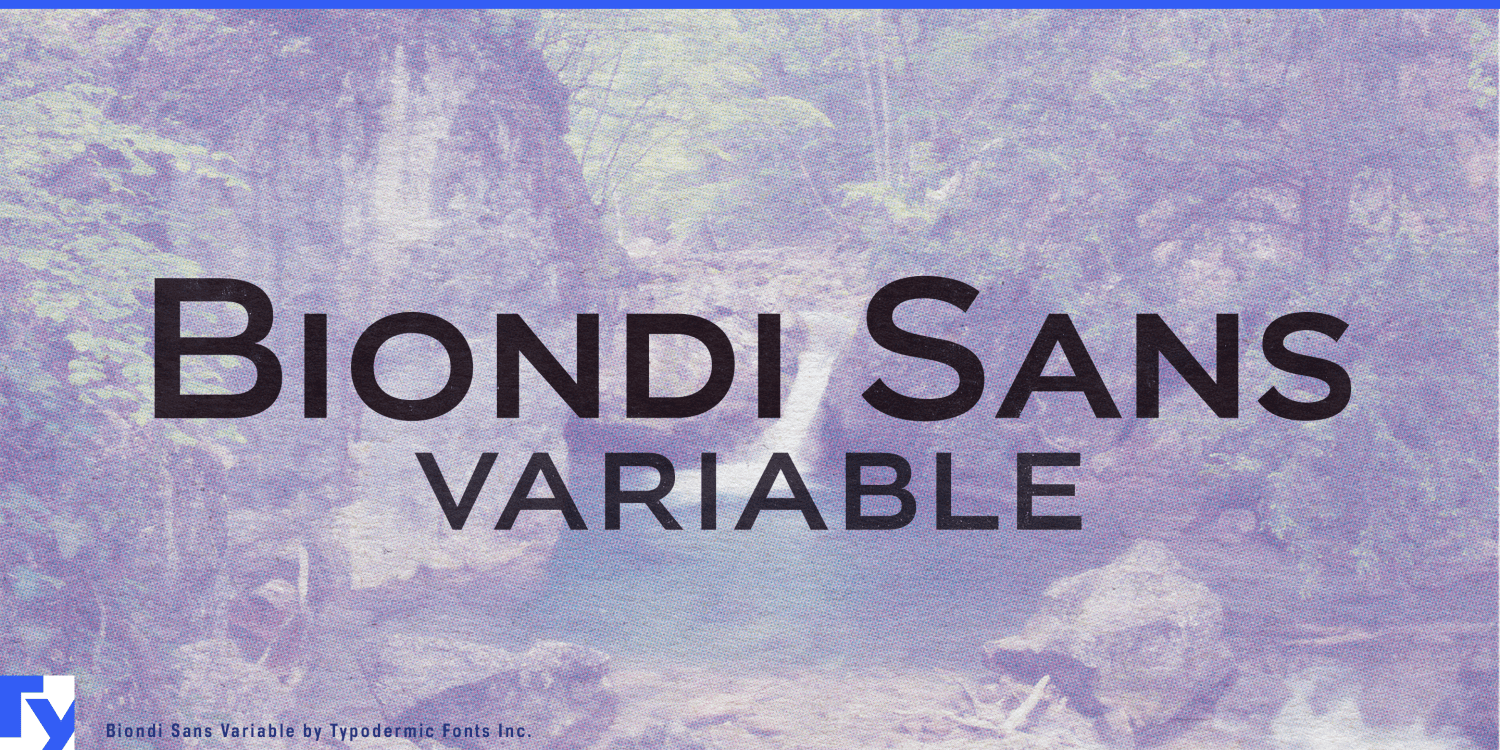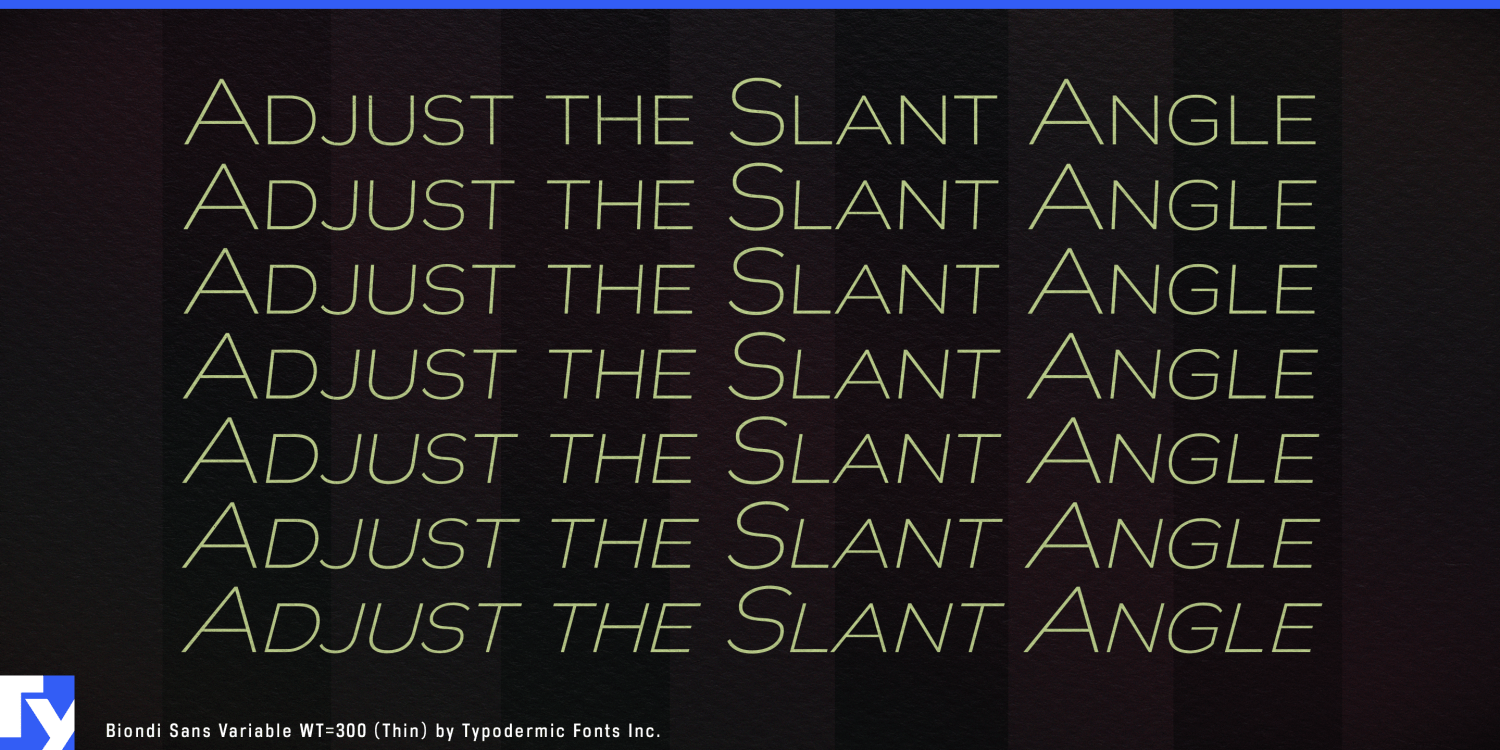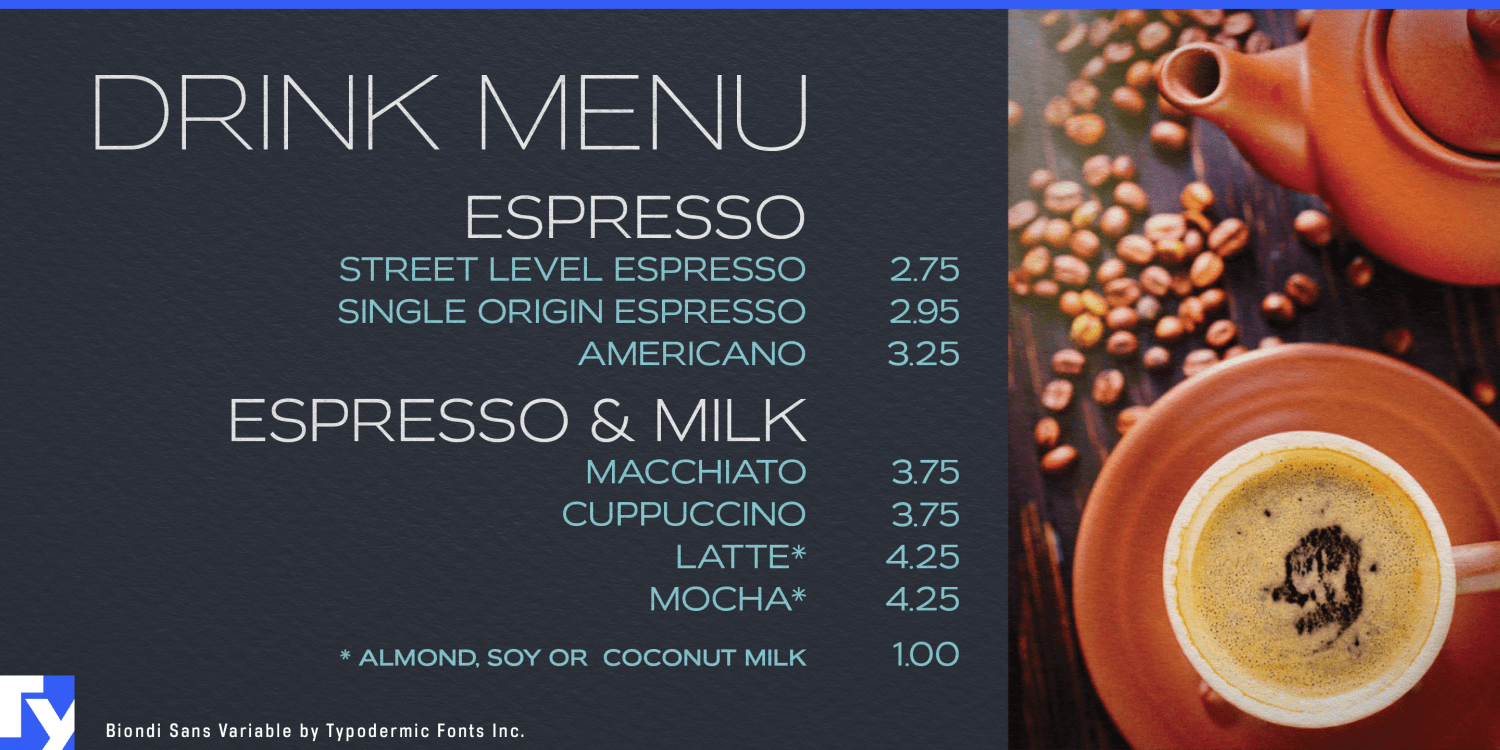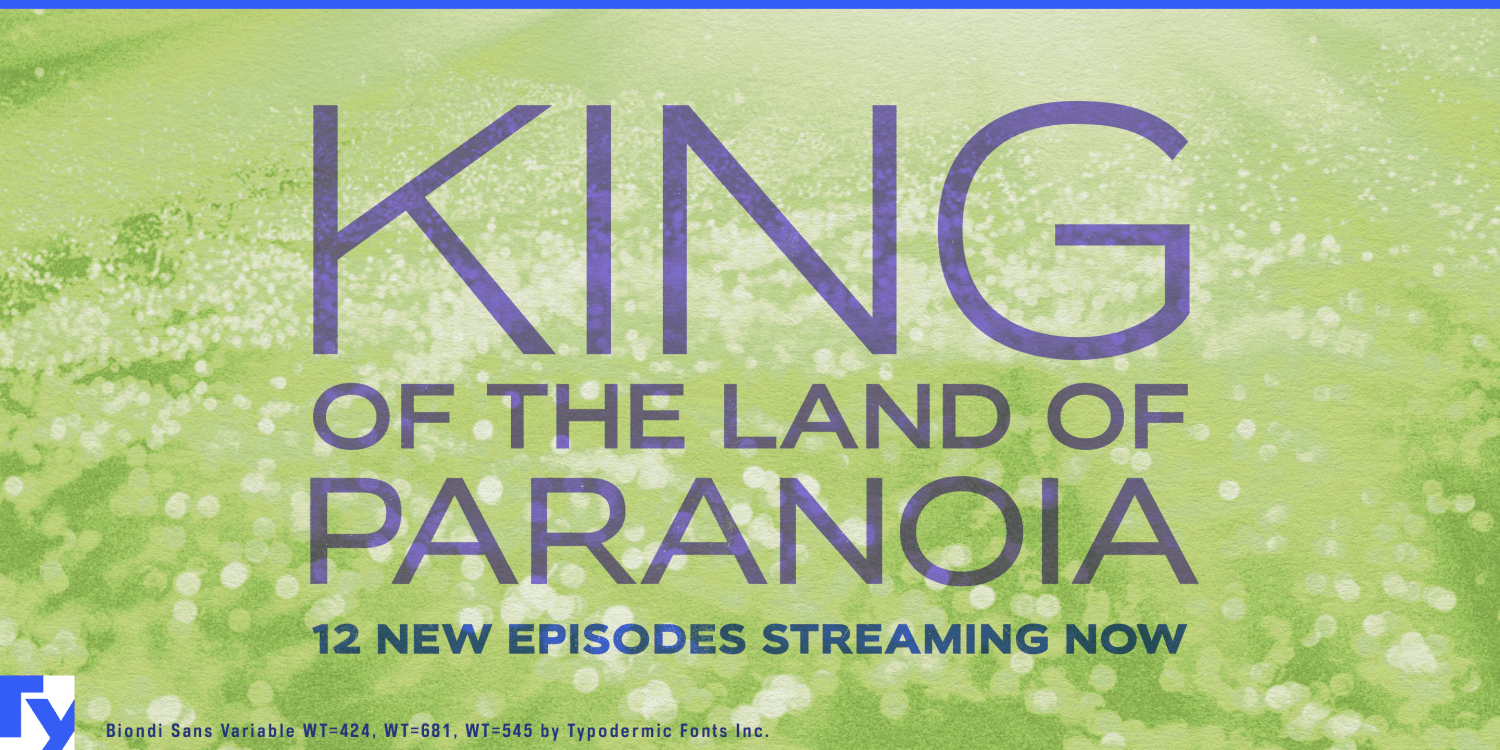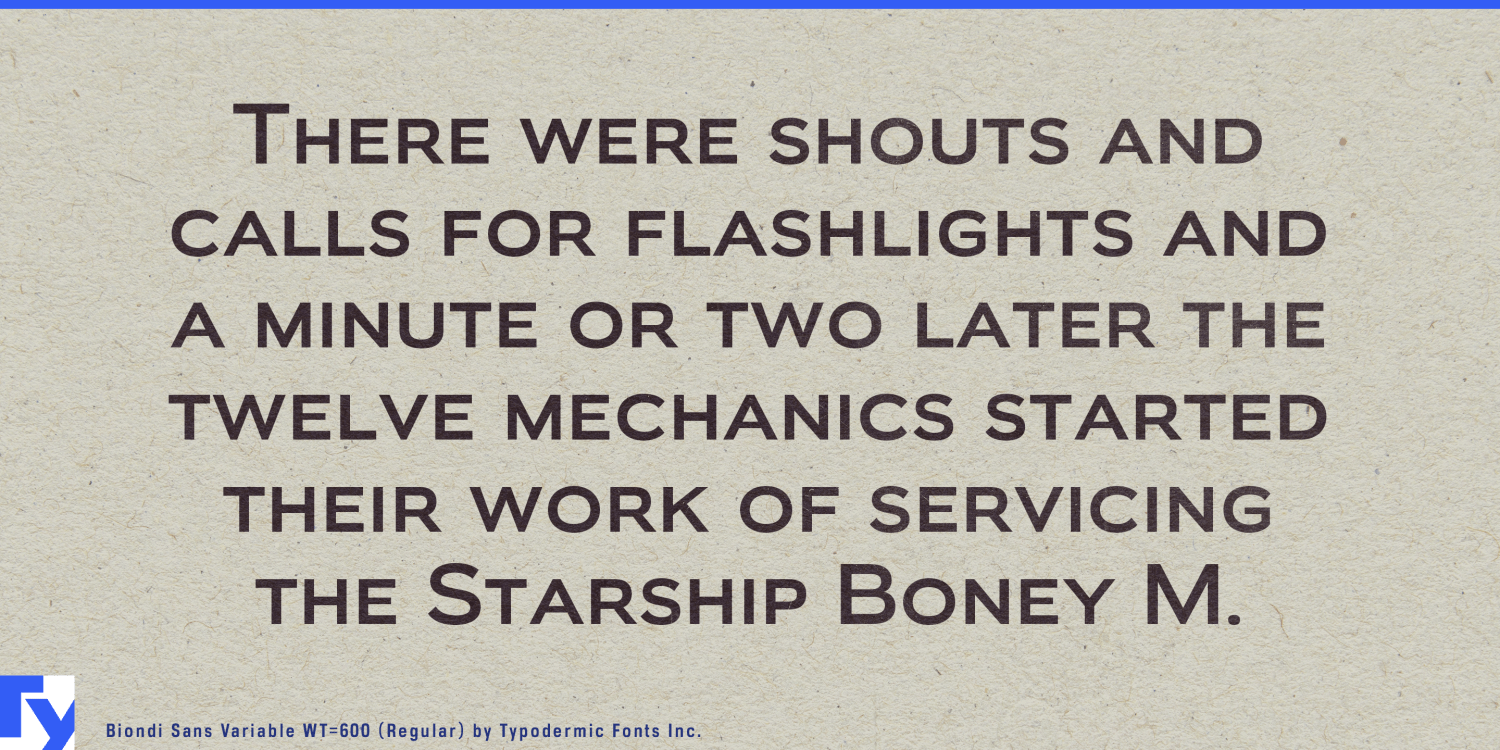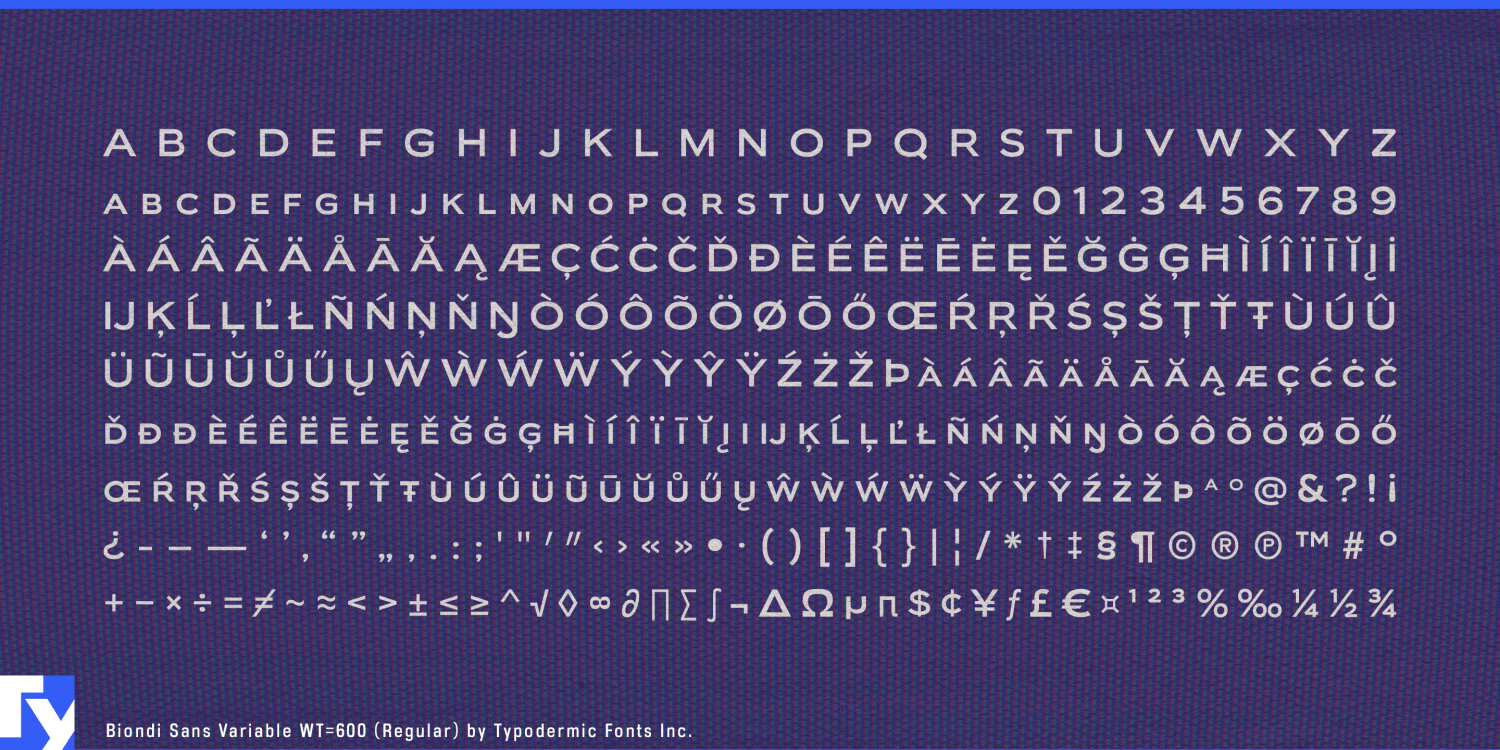
Biondi Sans Variable
Biondi Sans Variable brings Biondi Sans’s engraver-derived structure into a continuously adjustable format. The design began with the wedge serifs shaved from Biondi, retaining its broad, squarish proportions and Copperplate-related capital rhythm. Although the two families have since been independently reworked, Biondi Sans still reads as a serifless interpretation of traditional engraver lettering; formal and architectural, with a cleaner contemporary finish.
Weight and slant axes allow continuous adjustment from Hairline through Heavy and from upright to fully slanted. Instead of settling for the nearest predetermined style, designers can choose the precise stroke weight and degree of lean required by a particular scale, material, or level of emphasis. A slight slant can distinguish a location, vintage, or menu section without creating a strong change of voice; a deeper angle gives display lettering a more pronounced sense of direction.
Like the standard family, Biondi Sans Variable is an all-capitals design. Full-size capitals occupy the uppercase positions, while the lowercase positions contain smaller capitals. With no conventional lowercase, it is intended for names, headings, labels, navigation, and other short passages rather than continuous text.
The variable format is particularly useful across restaurant and hospitality identity systems. Fine upright capitals can appear on wine lists and formal stationery, heavier settings can carry exterior names and menu headings, and subtly slanted lettering can separate locations, cuisine, founding dates, or private-room designations. The same broad capital structure can continue through etched-glass entrances, hotel directories, cocktail menus, coasters, matchbooks, and dining-room signage while being adjusted for each scale and production method.
Wine, spirits, and specialty-food packaging offer similar scope. Weight can be tuned for small bottle labels, foil stamping, embossing, olive-oil tins, preserve labels, chocolate boxes, and gourmet gift packaging rather than being restricted to a fixed selection of styles. Producer names, vintages, varietals, regions, and classifications can be differentiated through size, capitalization, weight, and slant while remaining part of the same typographic system.
Biondi Sans Variable also suits building names, brass plaques, donor walls, commemorative inscriptions, exhibition titles, and university or foundation identities. Museum catalogues, architecture monographs, restaurant guides, and historical nonfiction can use it for covers, mastheads, chapter openings, running heads, bylines, and captions alongside a companion text face. In digital menus, exhibition displays, title sequences, and identity animation, the weight and slant axes can change gradually rather than jumping between fixed styles.